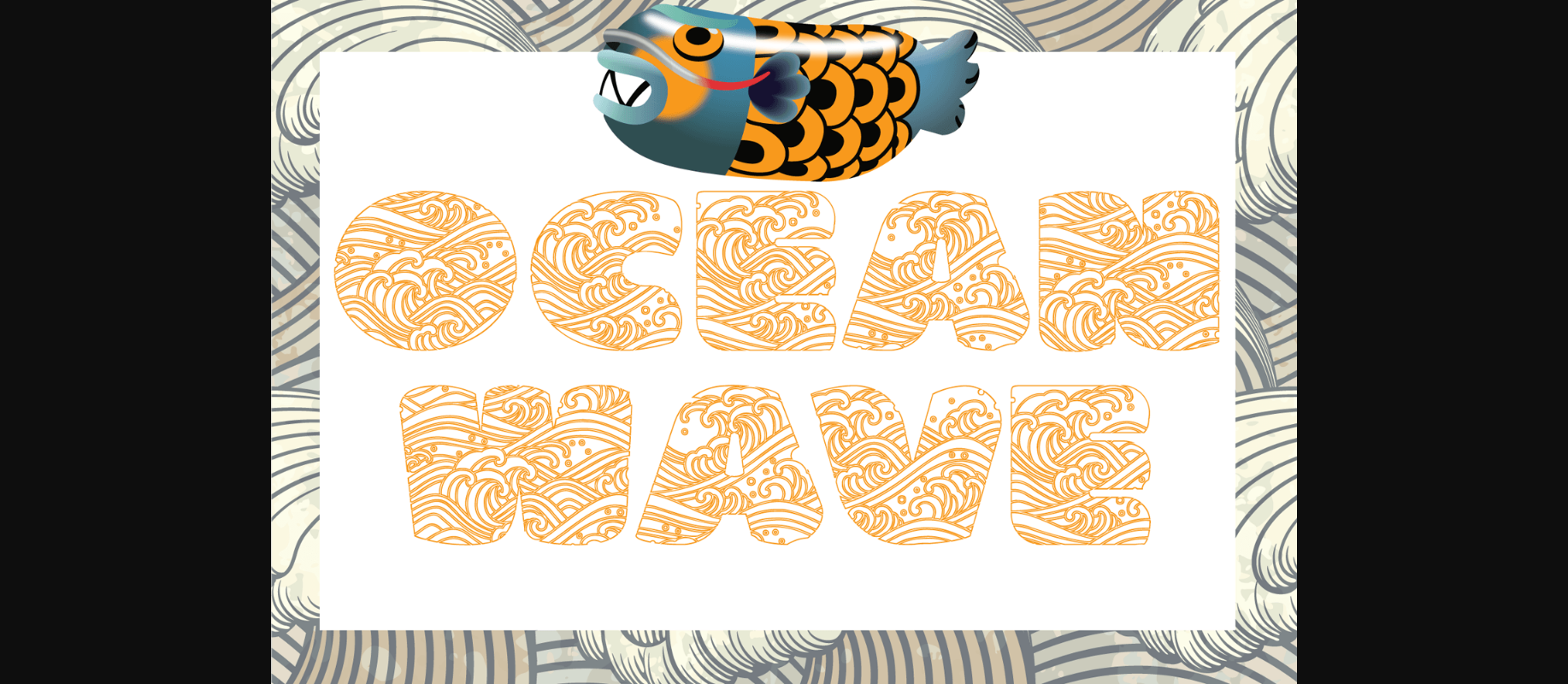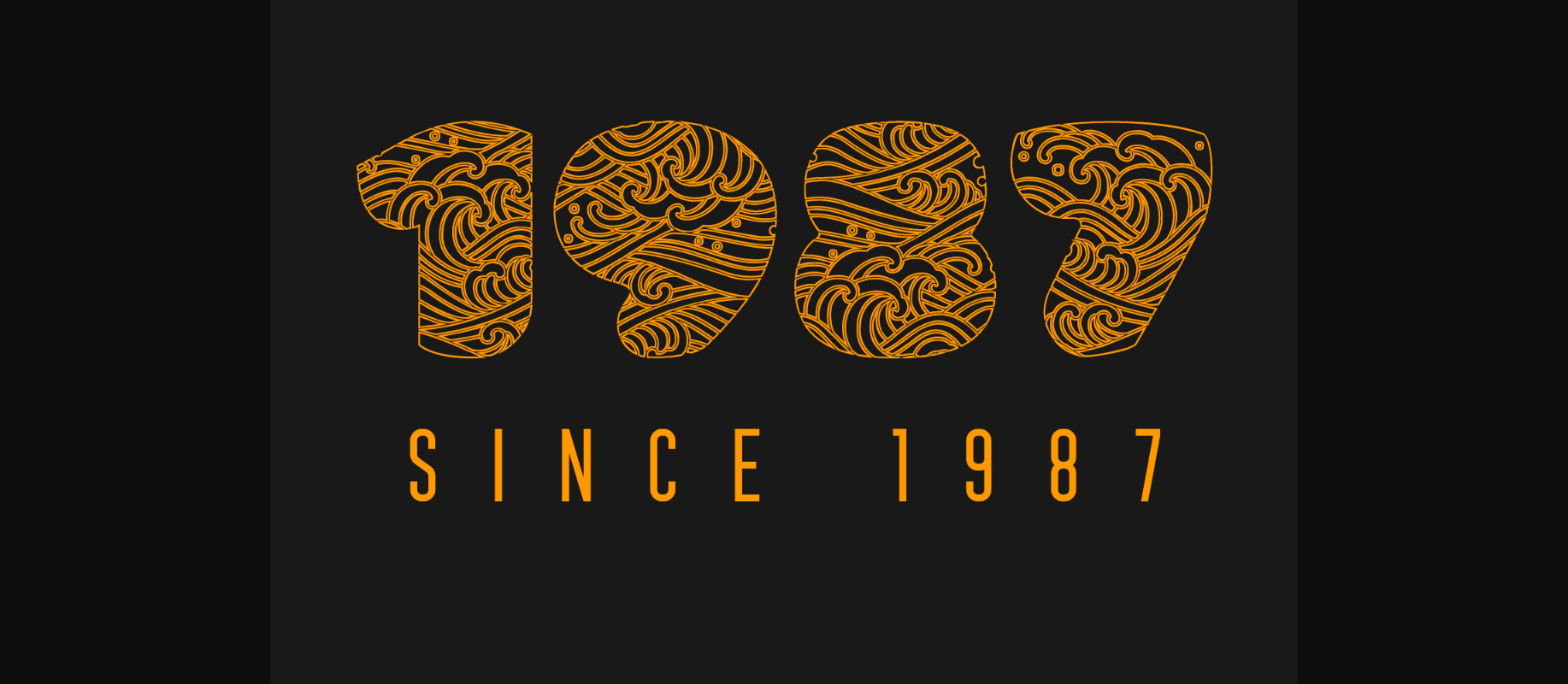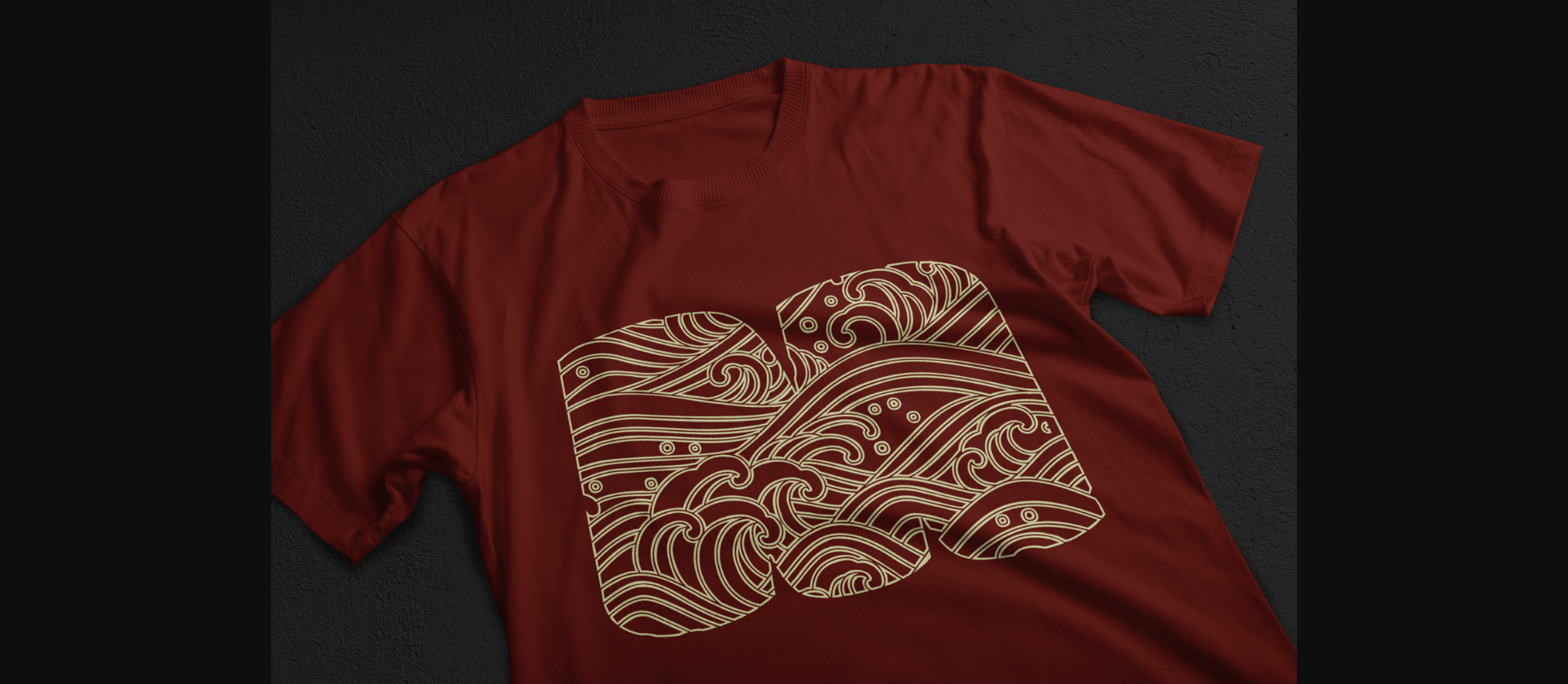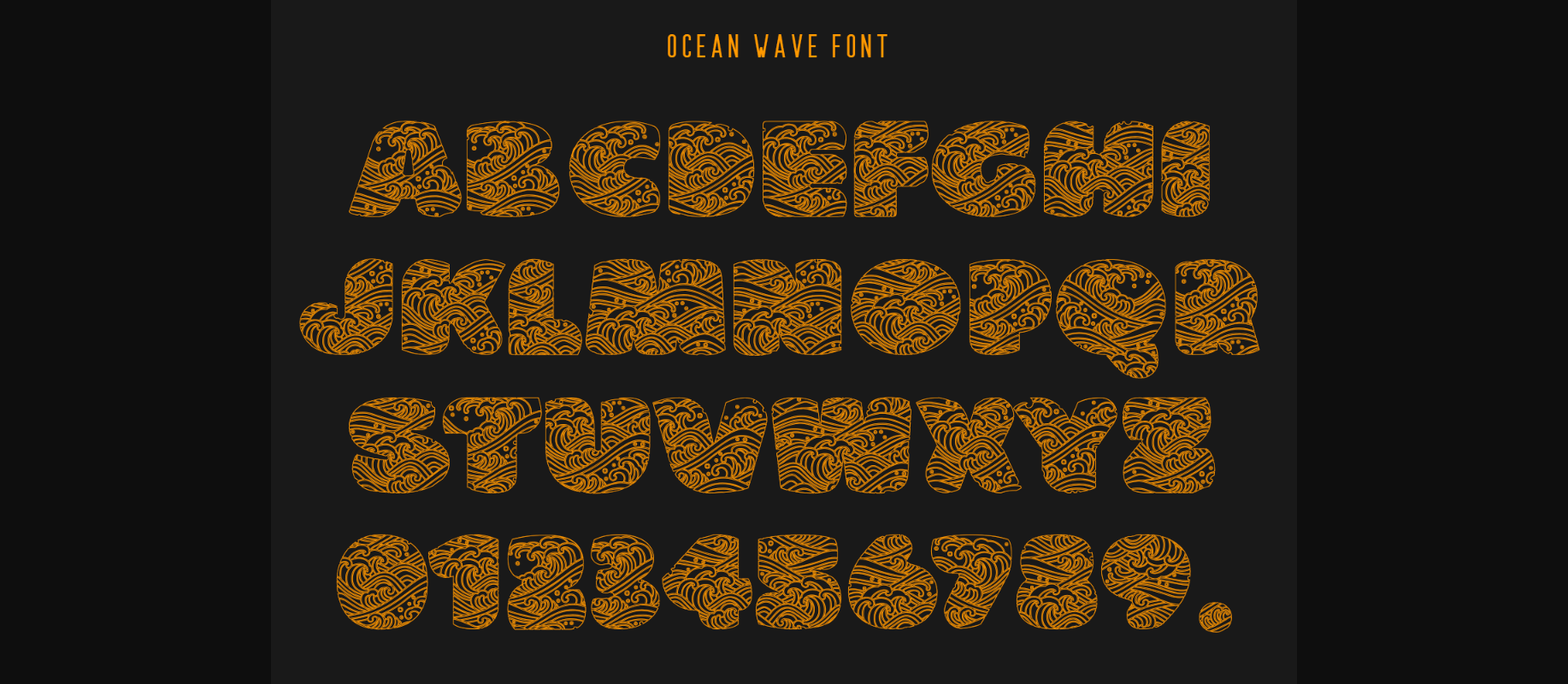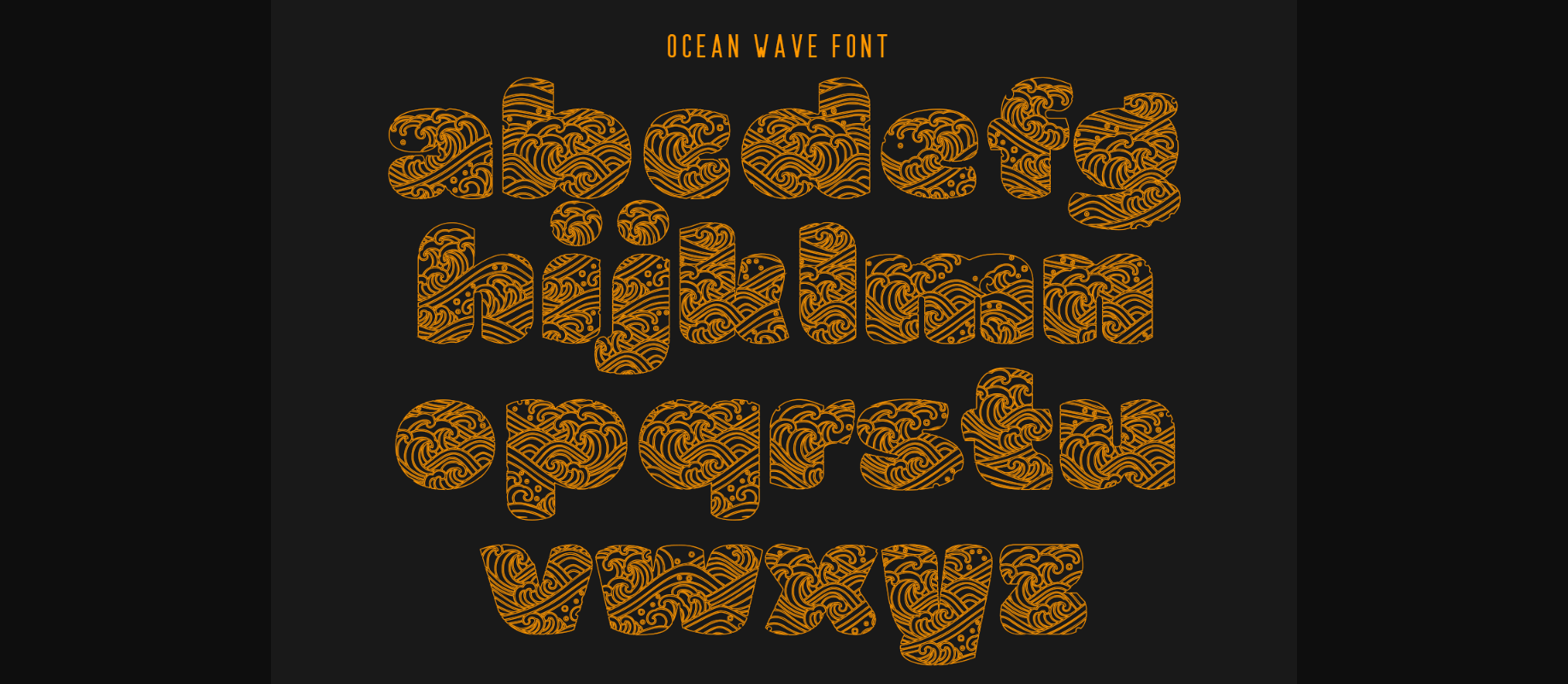
Ocean Wave Font
About Ocean Wave Font
Ocean Wave is an upper and lowercase decorative font. Inspired by the waves from the painting The Great Wave off Kanagawa. It is Hokusai’s most famous work and is often considered the most recognizable work of Japanese art in the world.
Give your designs an authentic handcrafted feel. Ocean Wave is perfectly suited for stationery, business card, logos and much more.